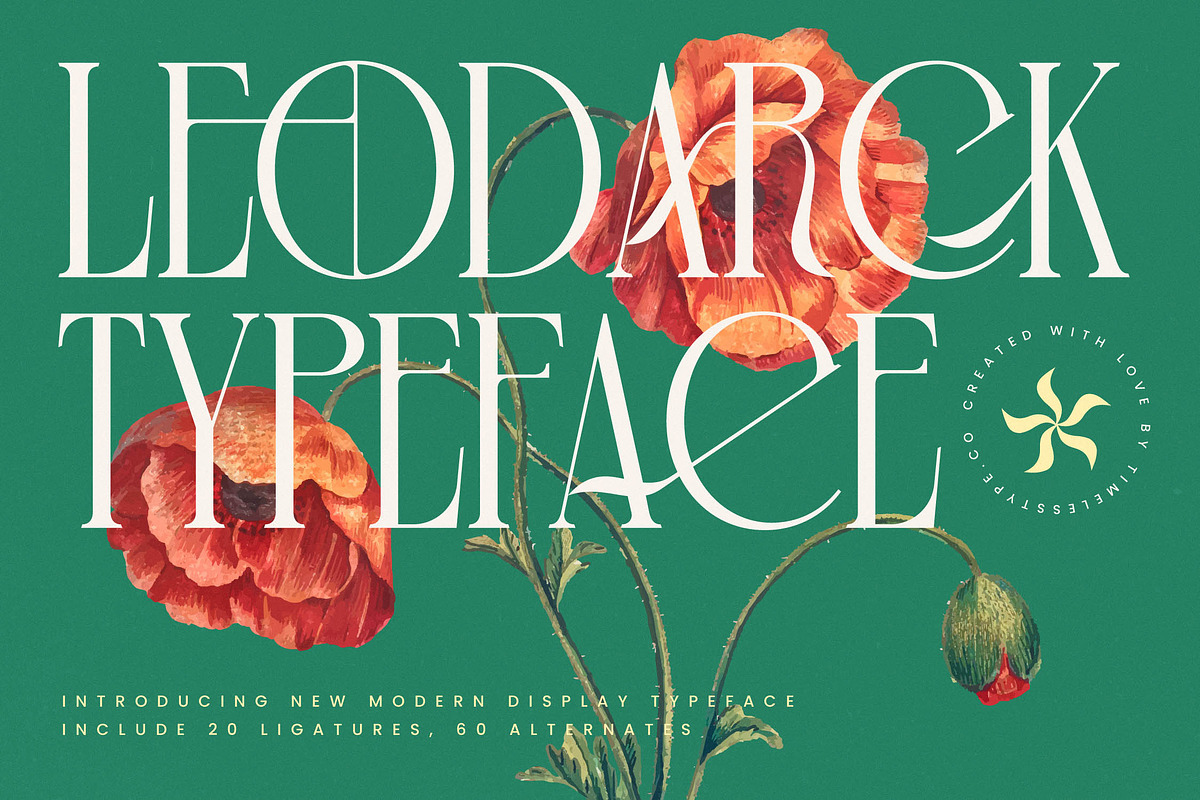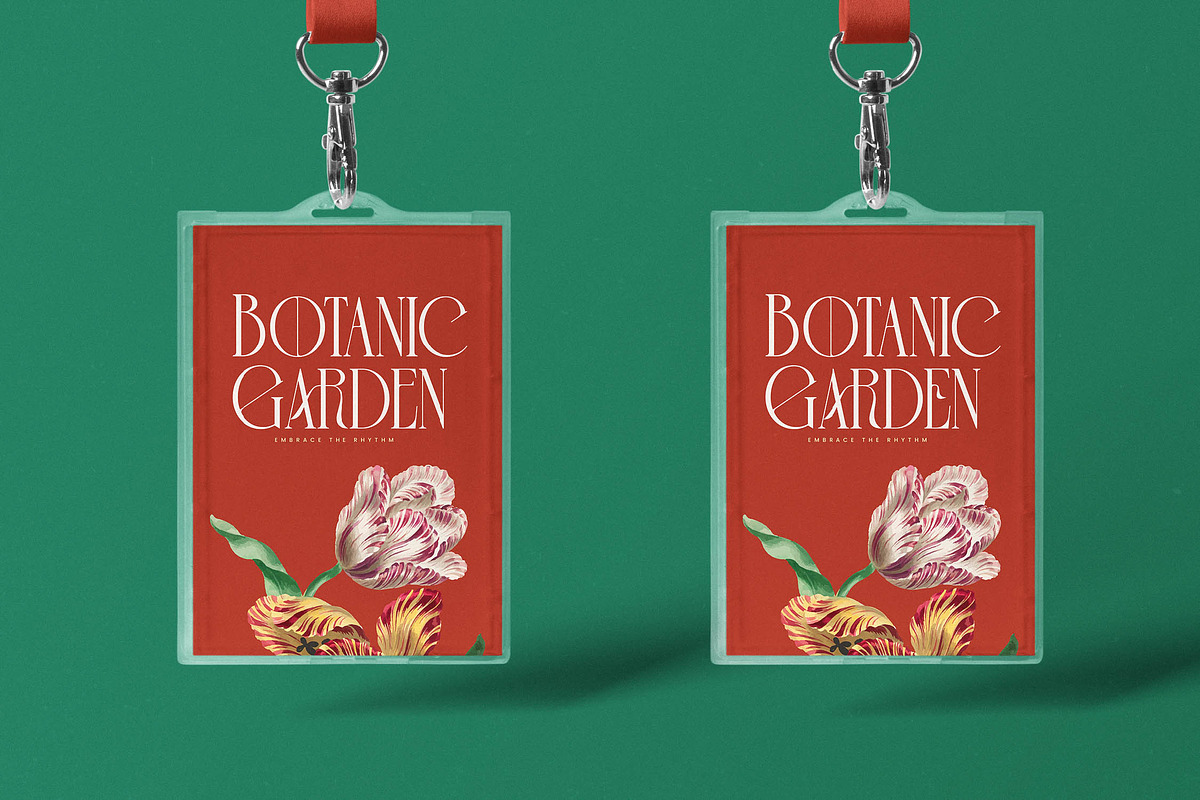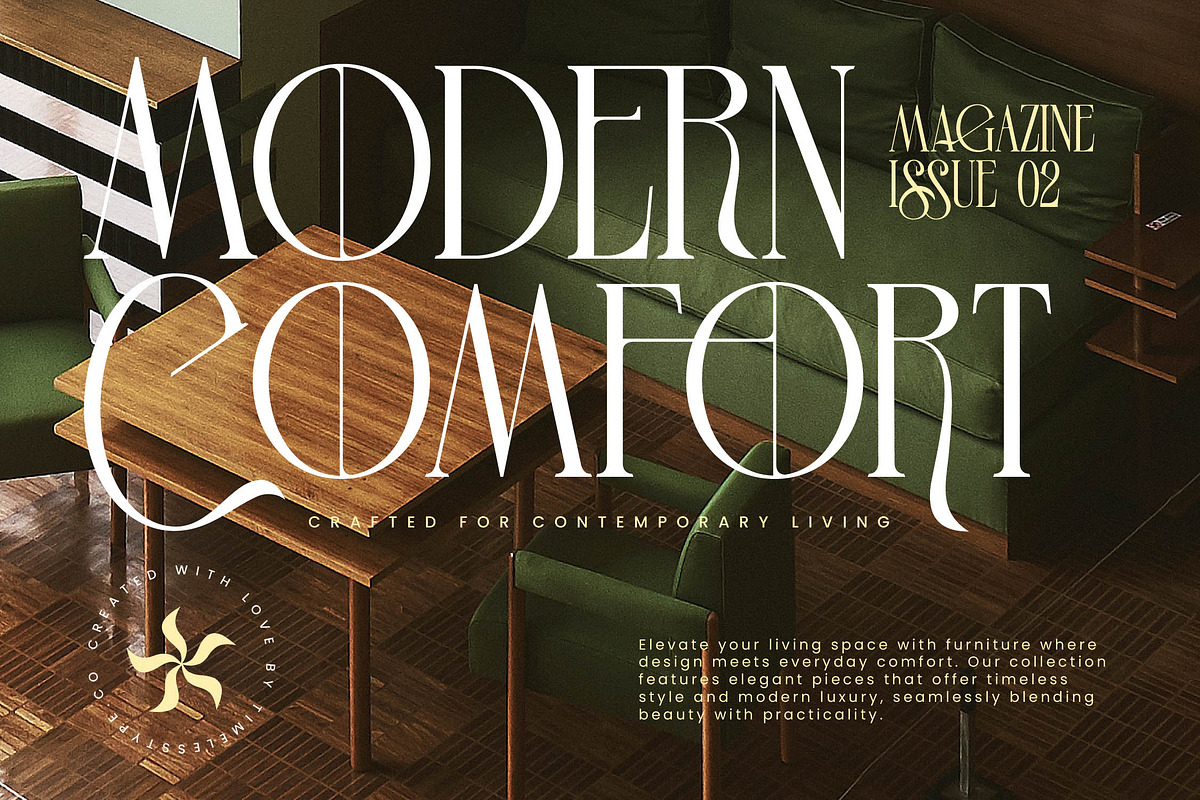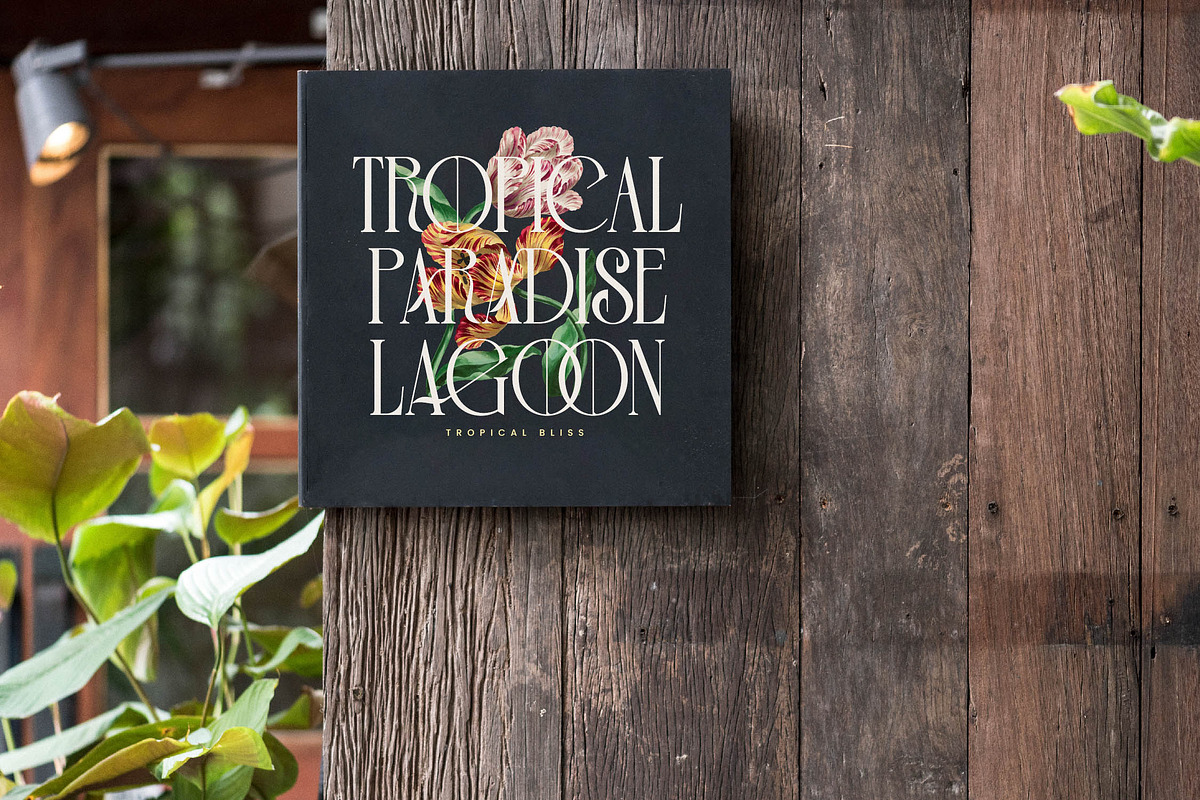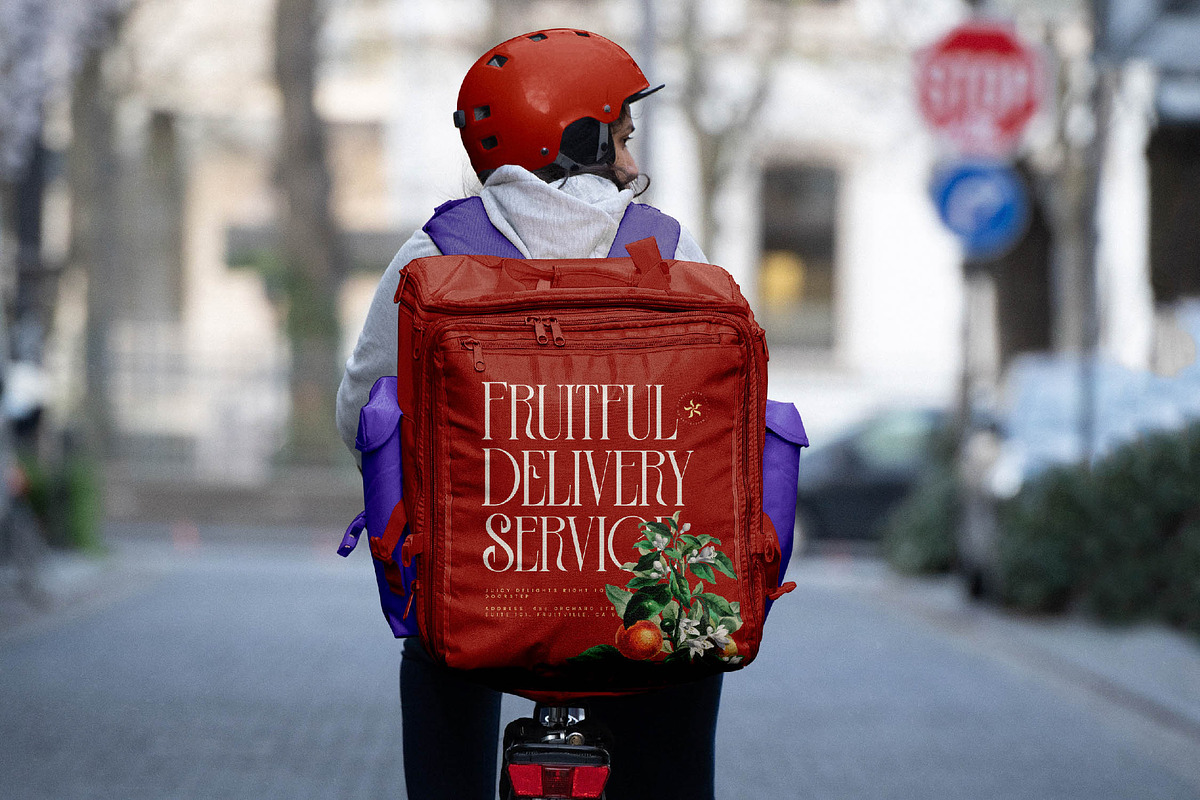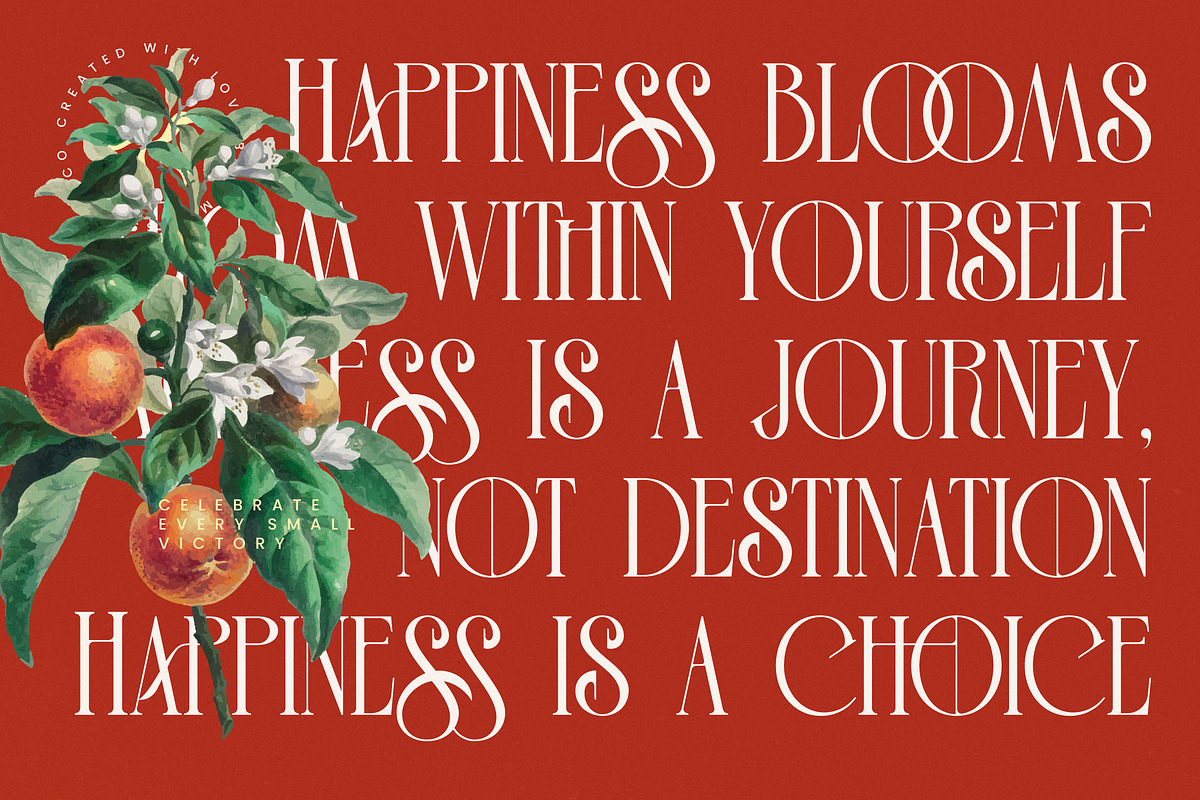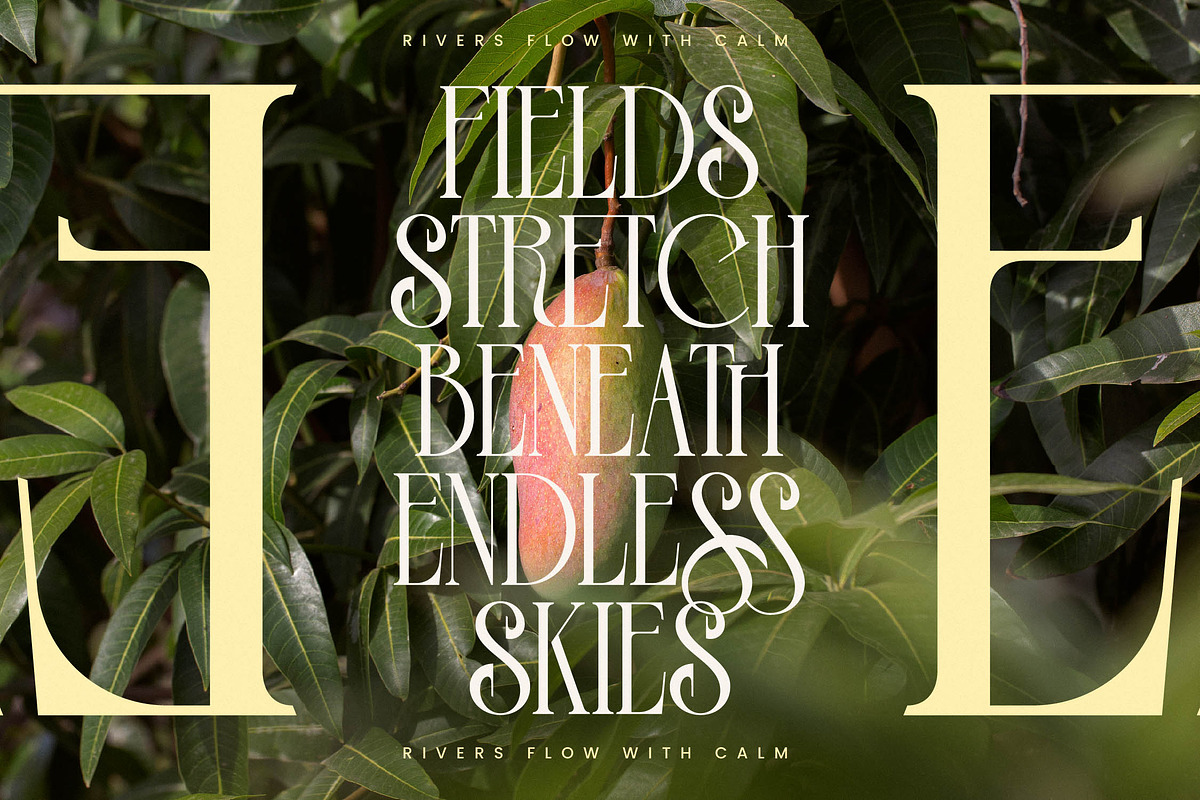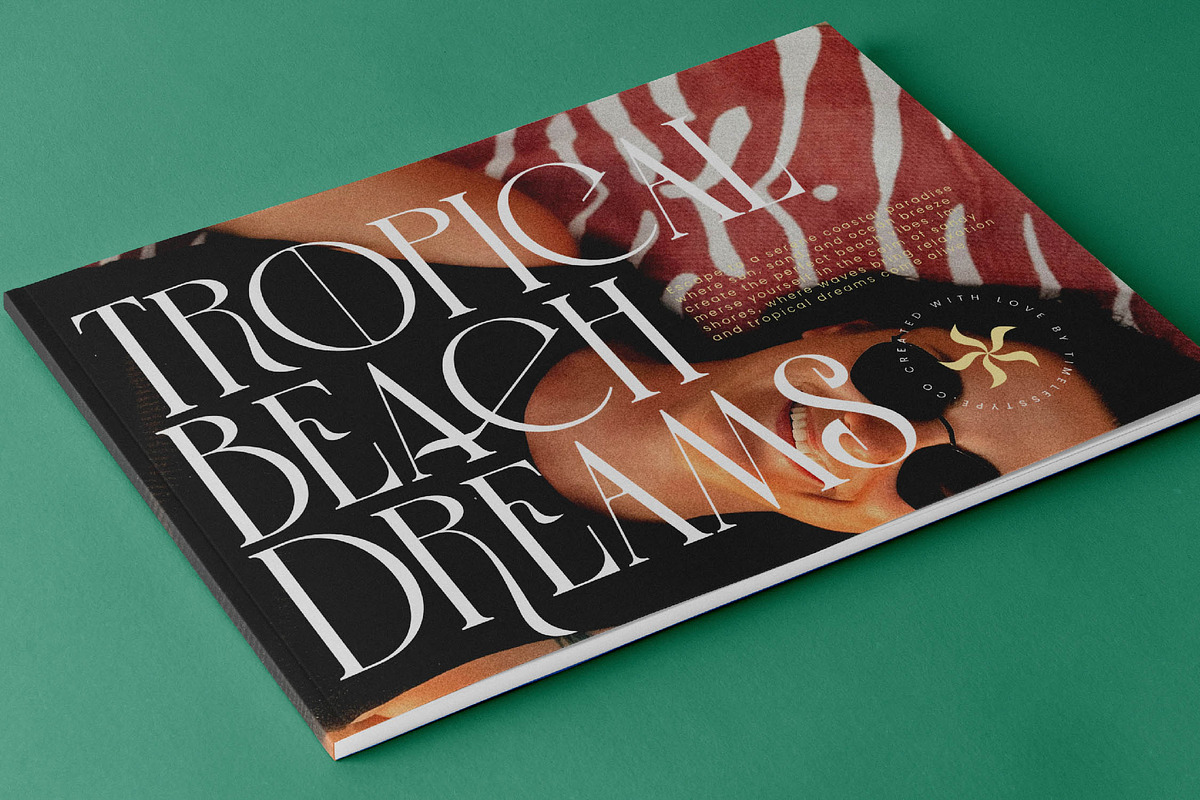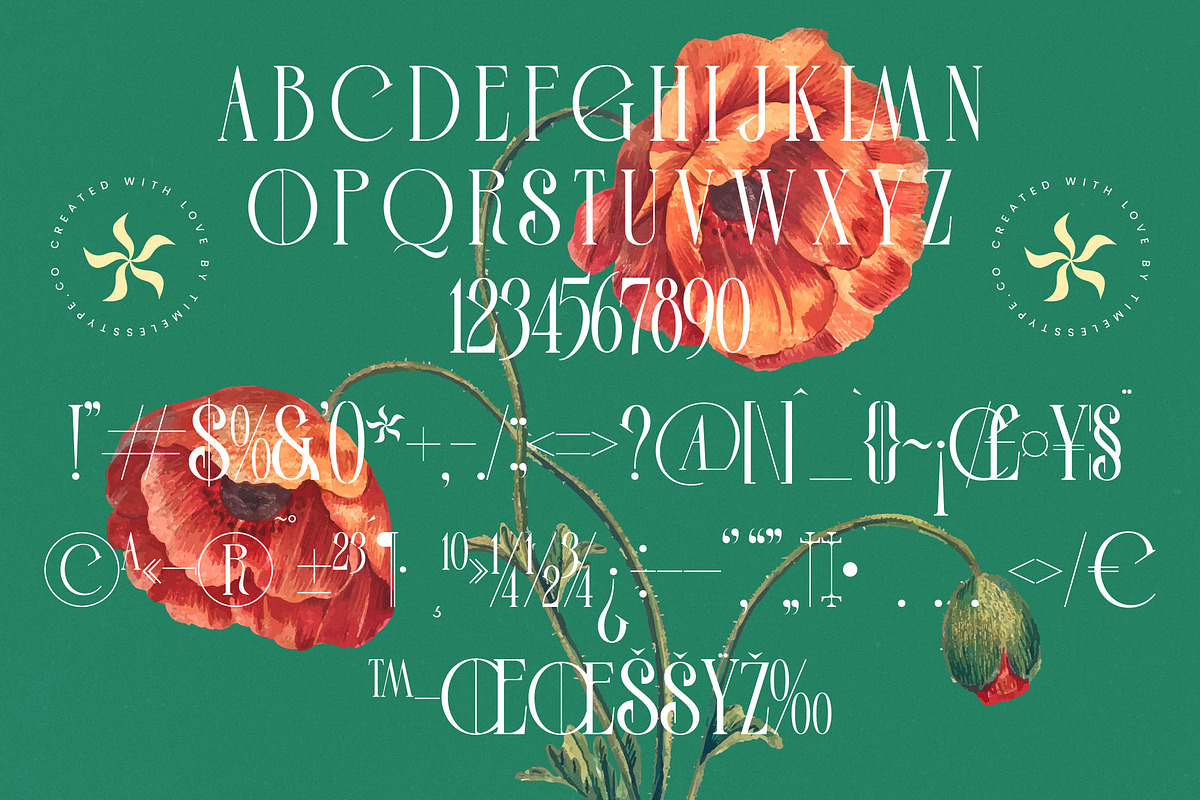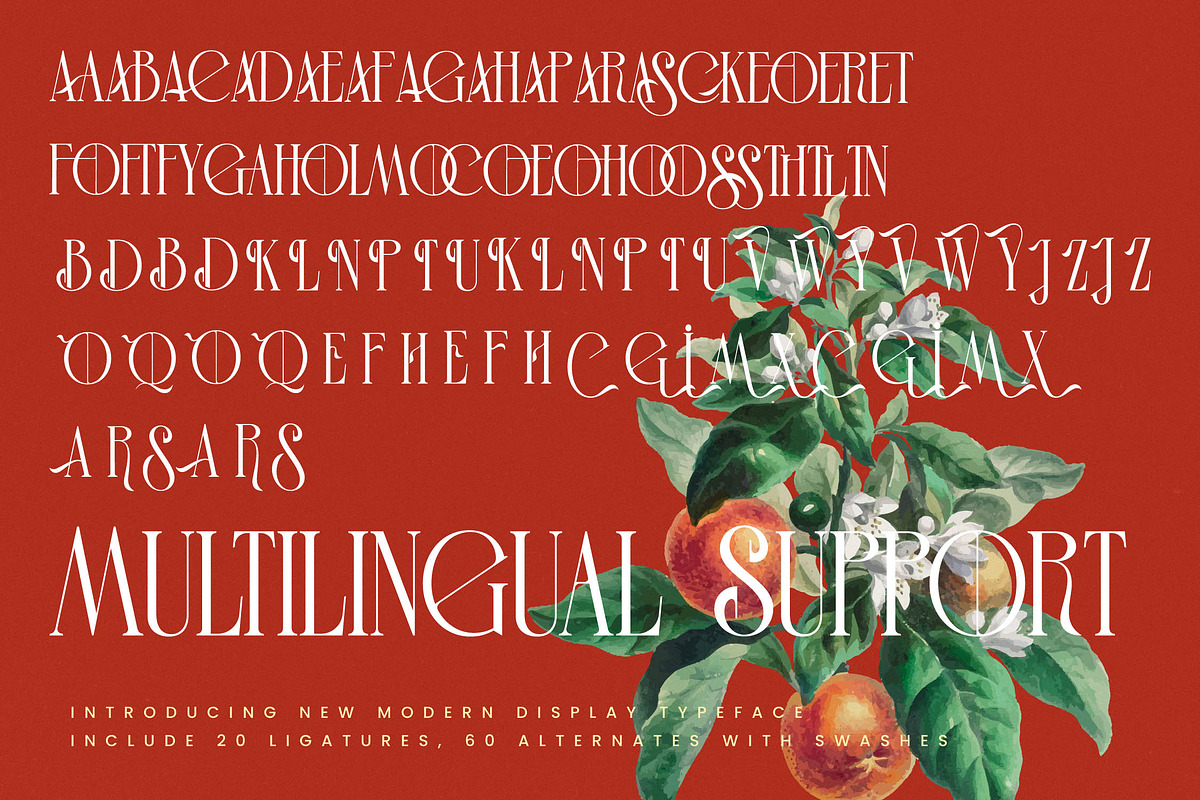
Leodarck New Modern Display Serif
Elevate your creative vision with the mesmerizing allure of Leodarck New, a typeface that bridges the gap between classic grace and contemporary bold flair. It is a masterclass in visual storytelling, designed to captivate the eye and leave an indelible mark on every canvas it touches.
Inspired by the intricate beauty of vintage botanical illustrations and the romantic spirit of high-fashion archives, this font draws its soul from the harmony of nature and architectural precision. The interplay of delicate hairlines and robust stems evokes a sense of refined mystery, mirroring the growth of vibrant flora against a backdrop of modern structural design.
This modern serif display exudes an air of quiet confidence and luxury typography that commands attention without ever trying too hard. Its high-contrast serif construction makes it a premier choice for designers seeking an editorial font that delivers a significant branding impact and a sophisticated narrative.
Capturing the essence of the current modern serif trend, this typeface aligns perfectly with the global shift toward editorial display fonts that prioritize uniqueness and personality. In an era of digital saturation, its character-driven typography offers a distinct voice that stands out in a crowded marketplace of sterile and generic designs.
From the initial concept of a high-end logo design to the cohesive development of corporate branding, this font excels across diverse creative platforms. It brings a touch of class to editorial layouts, provides a premium feel for luxury packaging, adds romantic flair to wedding stationery, and defines the visual identity of avant-garde fashion lookbooks.
The true magic lies within its extensive technical toolkit, featuring over 20 unique ligatures and 60 expressive alternates that allow for custom-tailored letterforms. Coupled with elegant swashes and full multilingual support for international characters, it ensures your creative message is translated beautifully across global borders.
- Ligature 20 Alternate 60